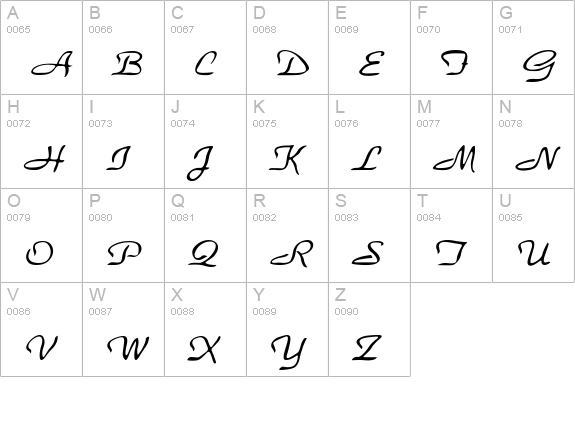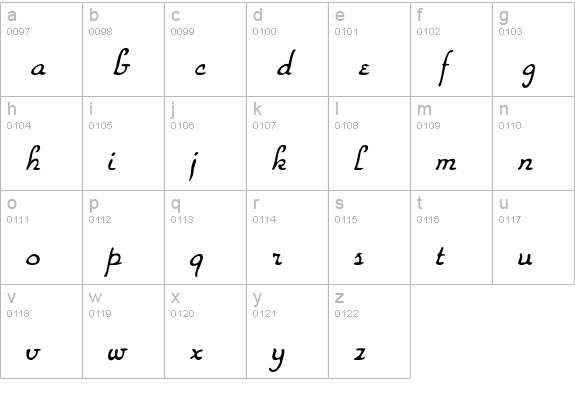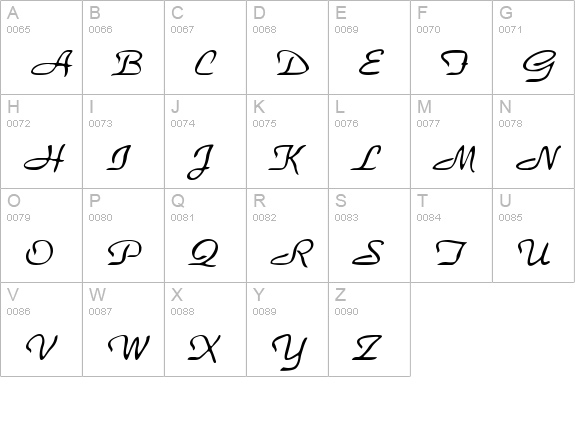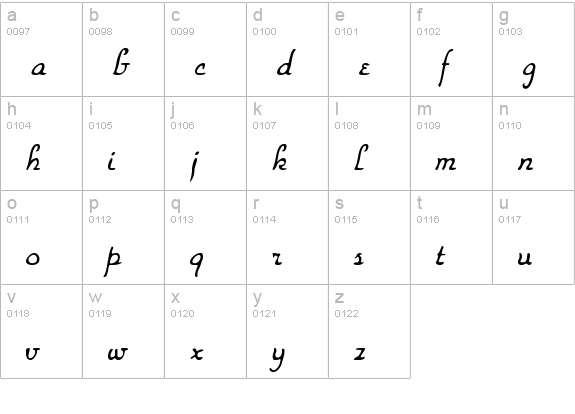
Parker Font Details
Parker font is a stunning and versatile typeface that exudes elegance and sophistication. With its clean lines and timeless appeal, Parker is the perfect choice for any design project that calls for a touch of class and refinement. This font's graceful curves and balanced proportions make it ideal for a wide range of applications, from branding and packaging to editorial design and website headings. Its versatility allows it to seamlessly adapt to any design concept, whether it be modern and minimalist or traditional and ornate. Designed by a team of skilled typographers, Parker font is meticulously crafted to ensure optimum legibility and readability. Each character is carefully balanced, resulting in a harmonious typeface that is a pleasure to read and work with. What sets Parker font apart is not only its aesthetic excellence, but also the fact that it is freely available to download at FontsMarket.com. This means that you can immediately access this exceptional font without any cost, allowing you to elevate your designs without breaking the bank. Whether you are a professional designer or an aspiring creative, Parker font is a valuable asset to have in your typographic arsenal. Its versatility, elegance, and the fact that it is free to download make it an irresistible choice for any project. So why wait? Head over to FontsMarket.com and get your hands on this exquisite font today.